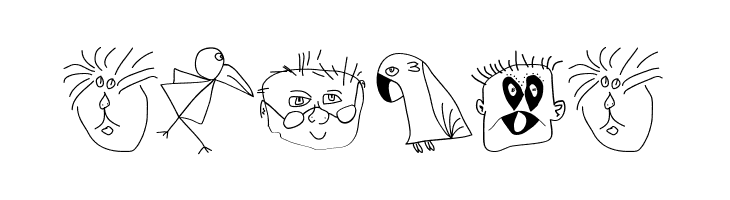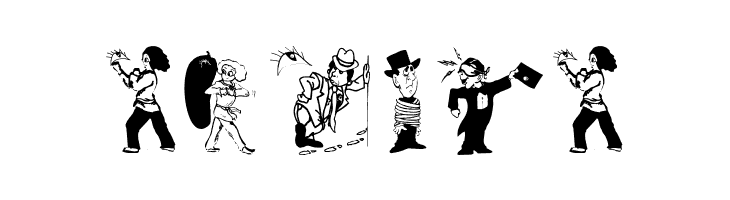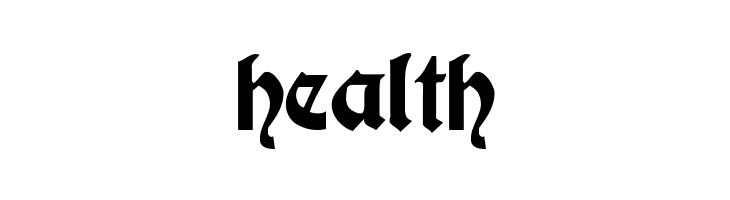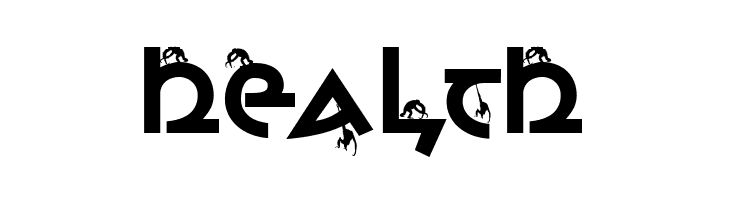
A playful, doodle-style font with quirky, hand-drawn characters.
( Francisco Matute )
A bold, artistic font with irregular strokes and playful curves.
An illustrative, scene-based decorative font with modern art themes.
A decorative font with whimsical, vintage cinema-inspired illustrations.
A playful and elegant script font with a handwritten quality.
A playful, decorative font with whimsical monkey elements in each character.
A stylish and artistic font with modern and vintage elements, featuring unique decorative flourishes.
A bold, monospaced font with uniform character width and strong readability.